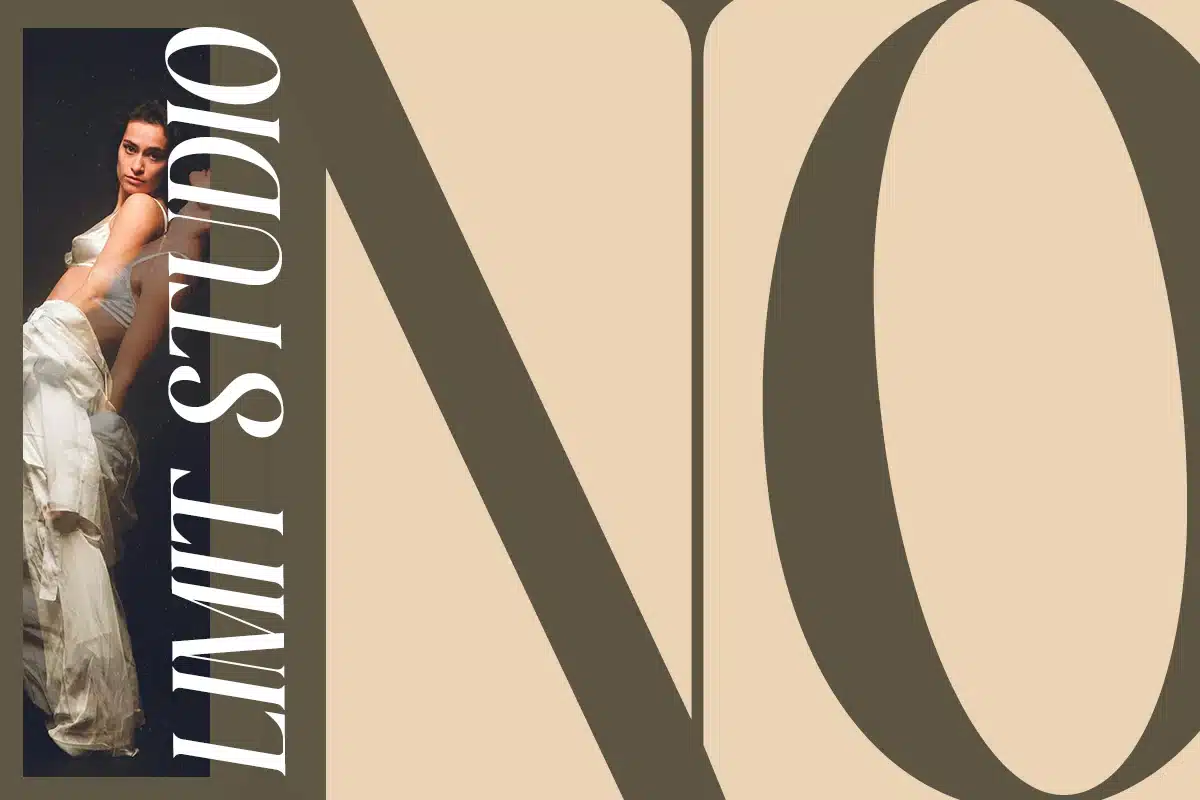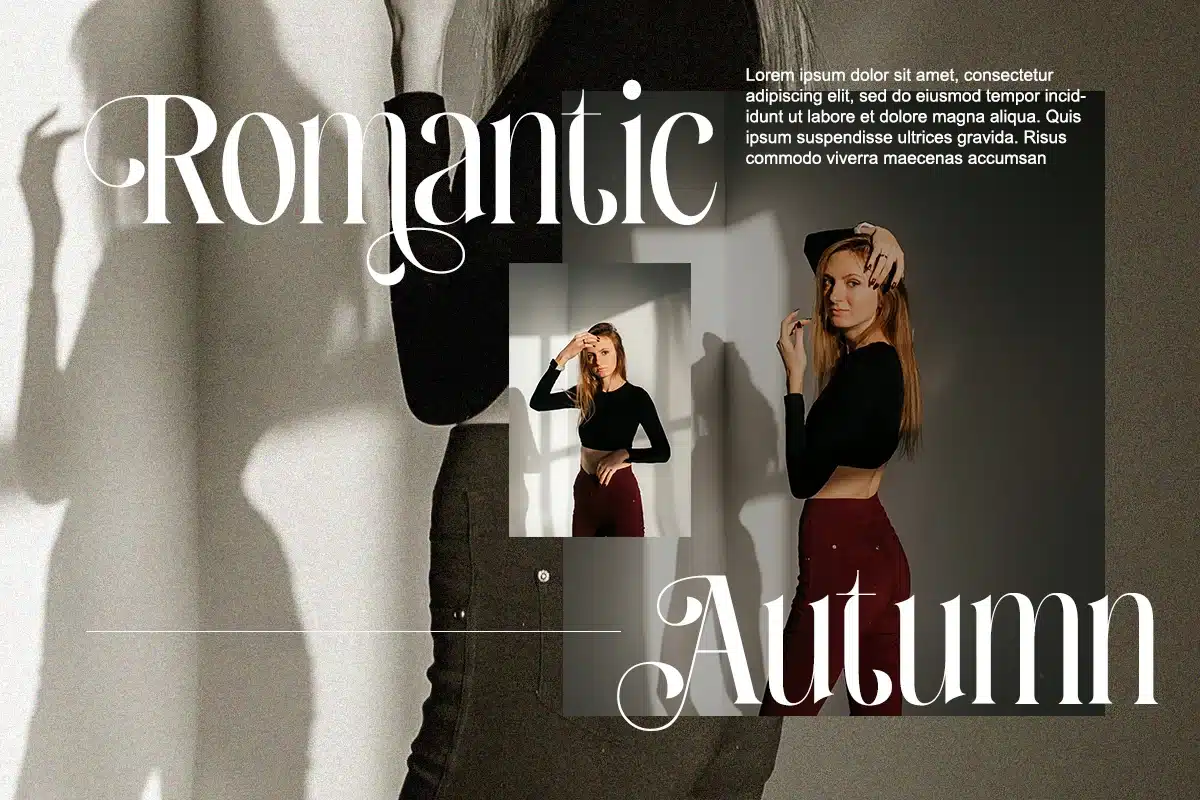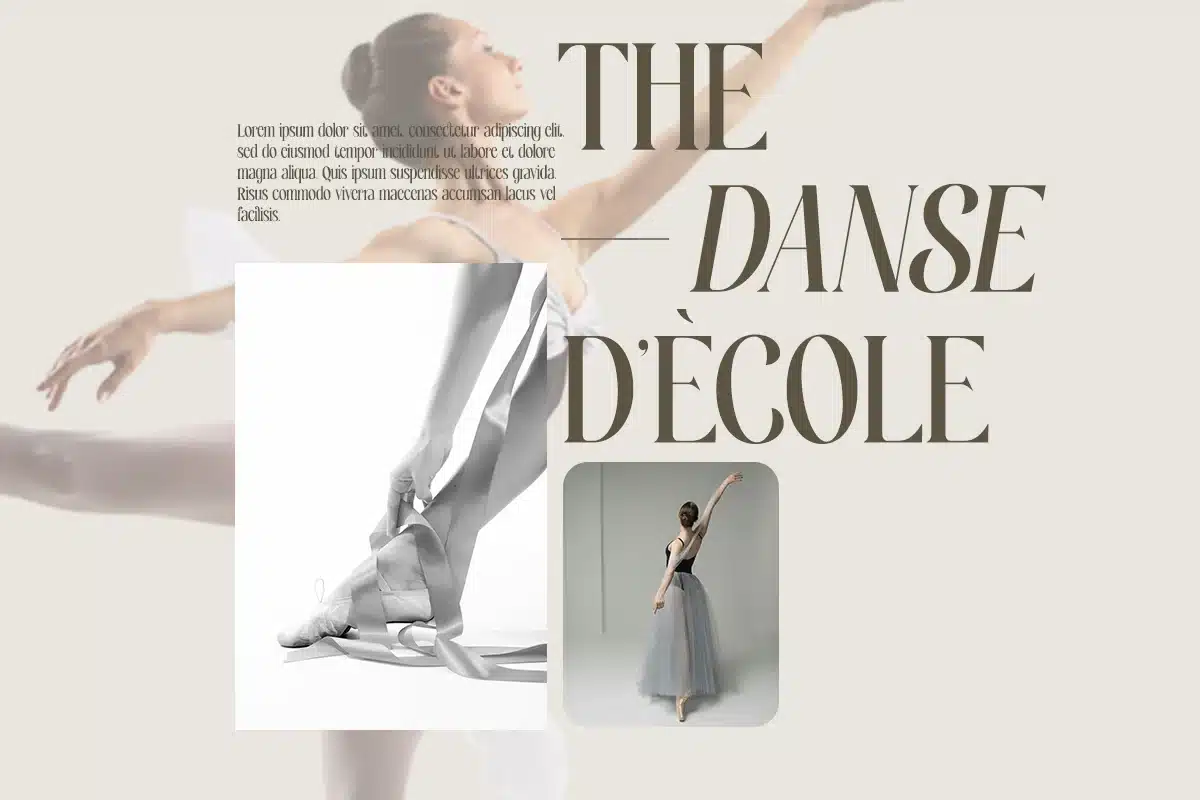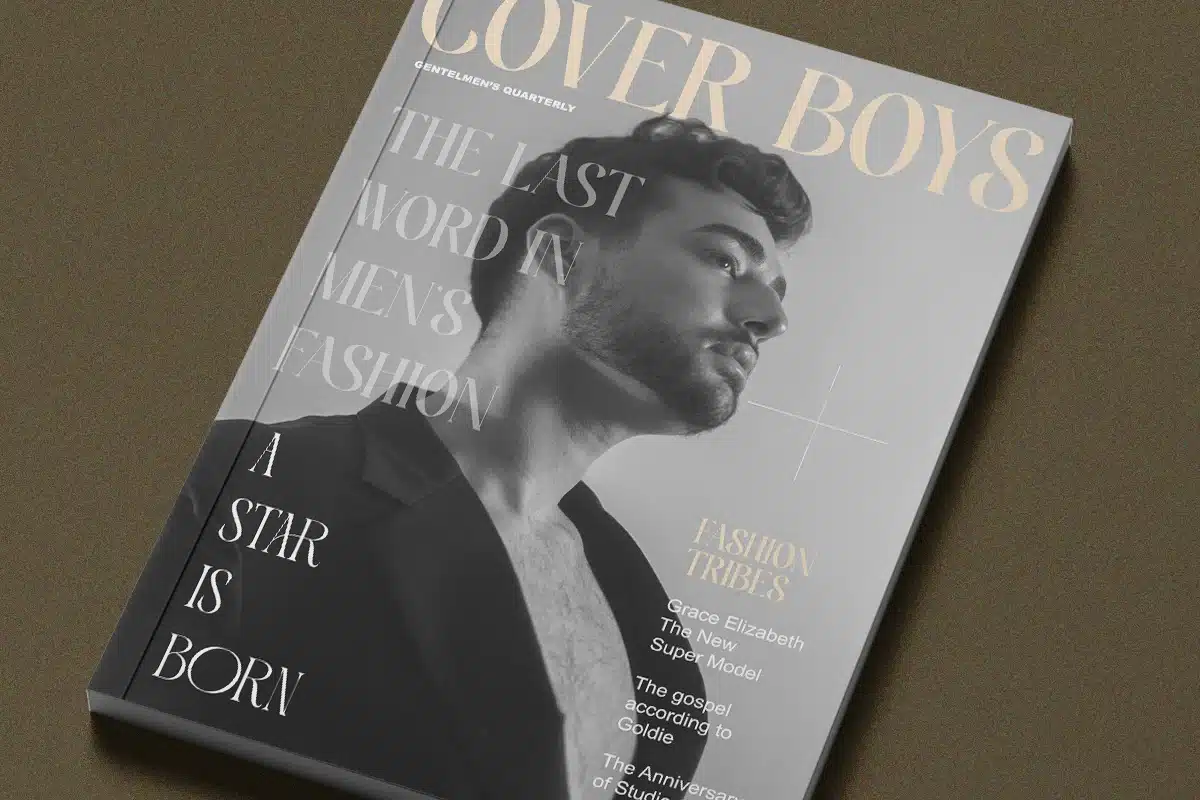
Novera Balessa – Modern Elegant Luxury Logo Font
Novera Balessa - Modern Elegant Stylish Serif Typeface
Novera Balessa is a graceful serif typeface that perfectly balances elegance, style, and modern charm. Designed with artistic flourishes and high contrast strokes, this font brings expressive sophistication to every design—ideal for fashion branding, editorial headlines, luxury packaging, and elevated social media templates.
With its dramatic curves and delicate swashes, Novera Balessa is more than just a font—it’s a visual identity. The alternates and ligatures allow for stunning typographic combinations, helping you create high-impact designs with distinctive personality.
- Elegant Serif Typeface – Modern & expressive with stylish character
- 2 Styles – Regular & Italic for flexible applications
- Beautiful Alternates – Flourished letterforms for creative freedom
- High Contrast Design – Ideal for impactful display use
- OpenType Ligatures – For fluid and professional-looking text
- Multilingual Support – Extended Latin character set
- Editorial magazine layouts
- Fashion or beauty branding
- Elegant product packaging
- Wedding invitations & luxury stationery
- Social media graphics & headlines
- Feminine logo design
Make a Bold and Beautiful Statement
With its modern elegance and luxurious flair, Novera Balessa transforms text into art. Whether you're building a brand or designing a campaign, this typeface brings confidence and timeless style to your project.